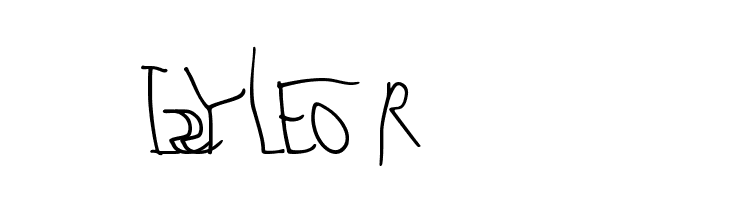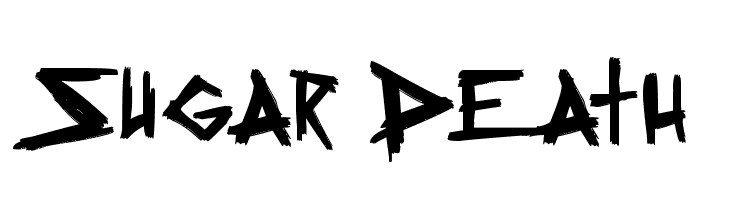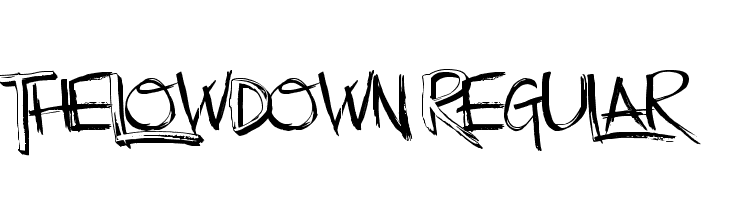
A dynamic, hand-drawn font with sharp, angular strokes and a graffiti-like style.
A bold, playful font with a handwritten, graffiti-like style.
A bold, hand-drawn font with a sketch-like, graffiti-inspired style.
A bold, graffiti-inspired font with thick, irregular strokes and a rebellious aesthetic.
A bold, hand-drawn font with a graffiti-like, expressive style.
A bold, graffiti-inspired font with a hand-drawn, textured appearance.
A bold, edgy font with sharp, angular strokes and a rebellious, graffiti-like style.